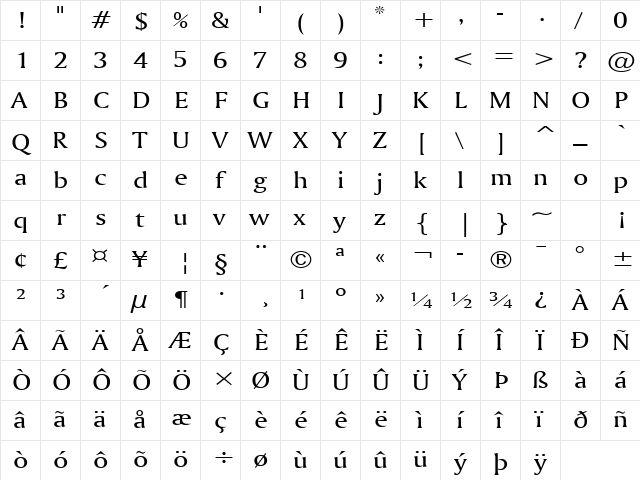
Ameretto Wide Normal
Complete Ameretto Wide Normal glyph index. Displaying only characters natively supported by Ameretto Wide Normal font.
Design Context for Ameretto Wide
Ameretto Wide is a composed and adaptable typeface that performs quietly and consistently across a wide range of design contexts.